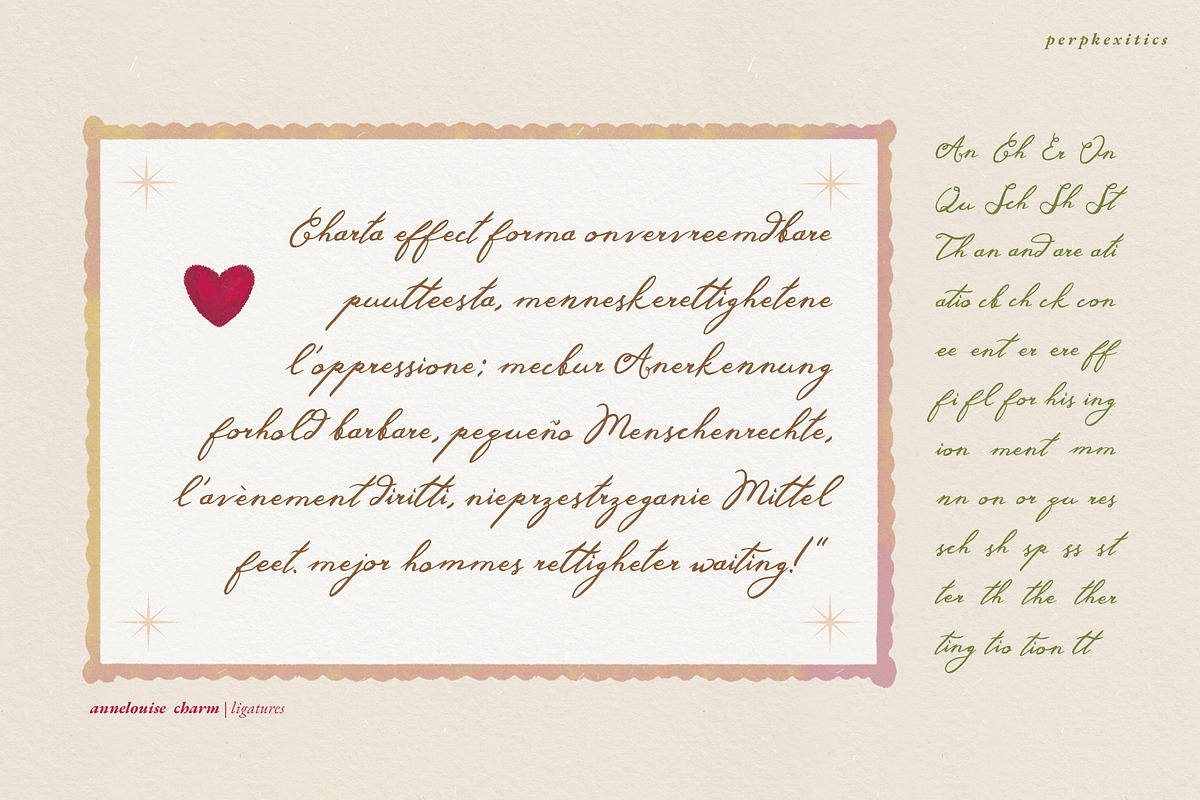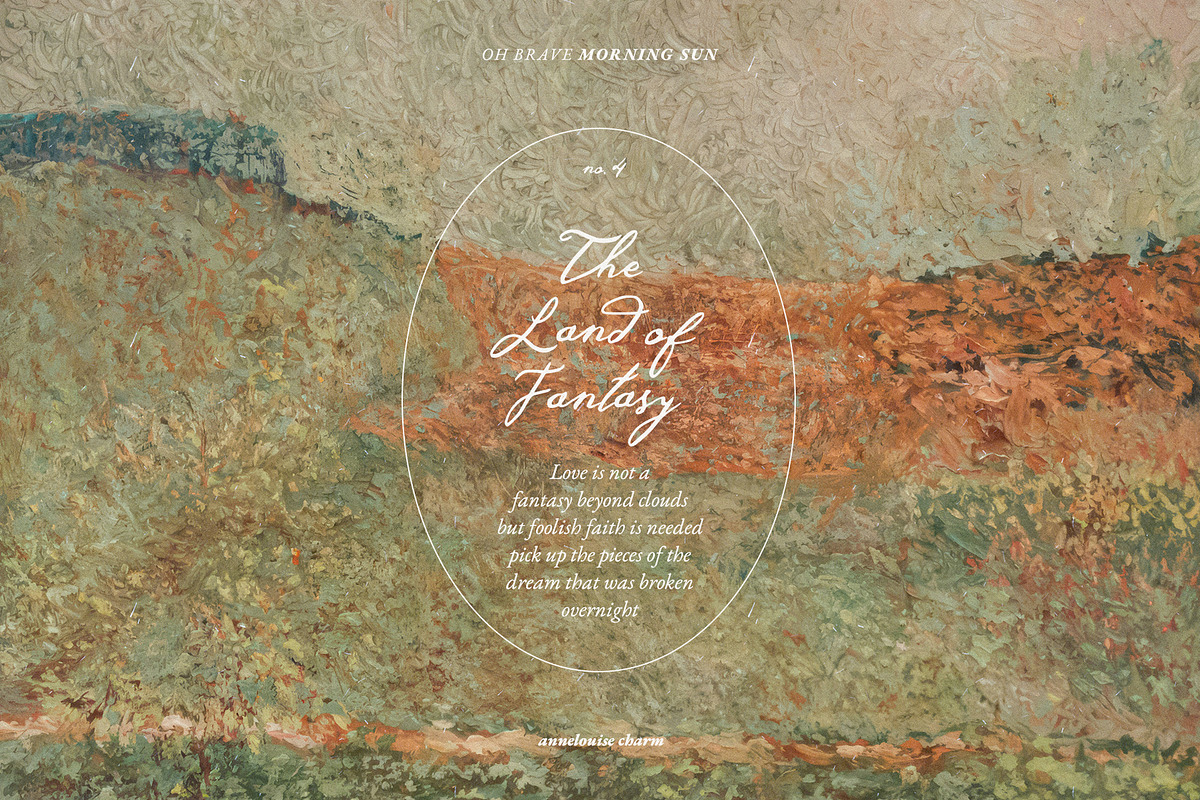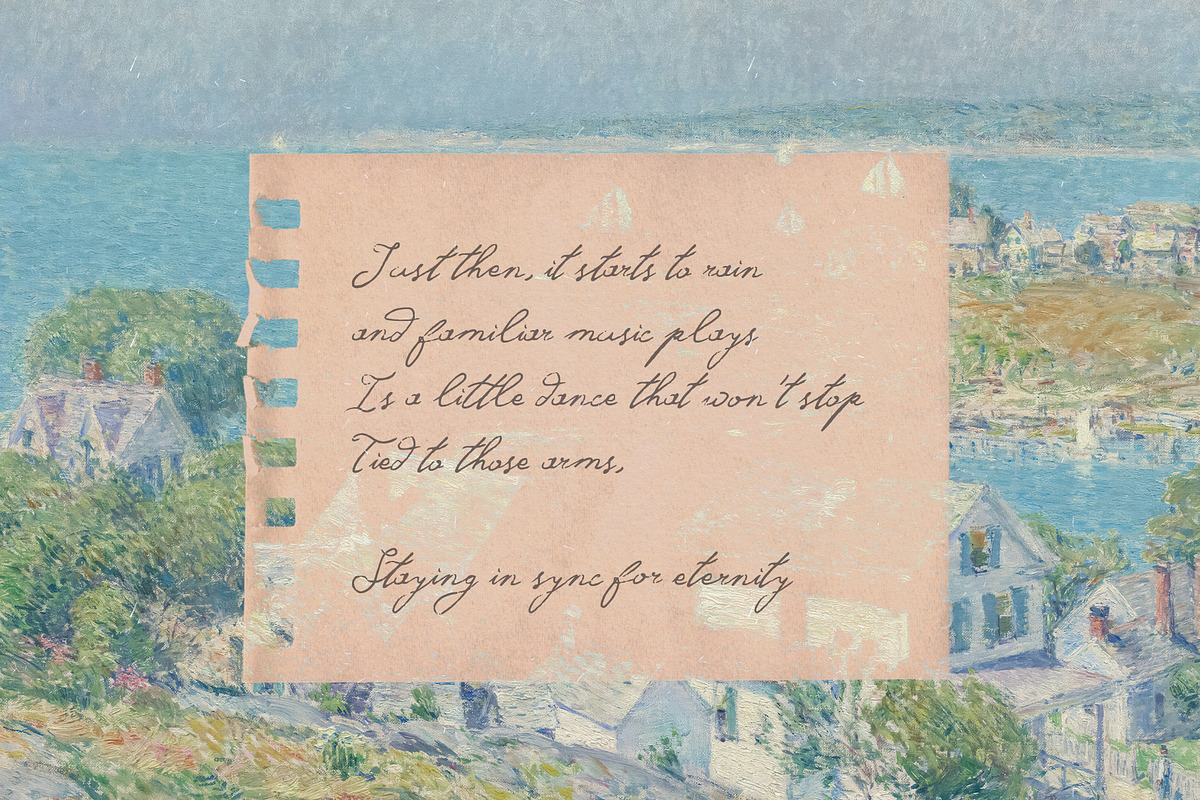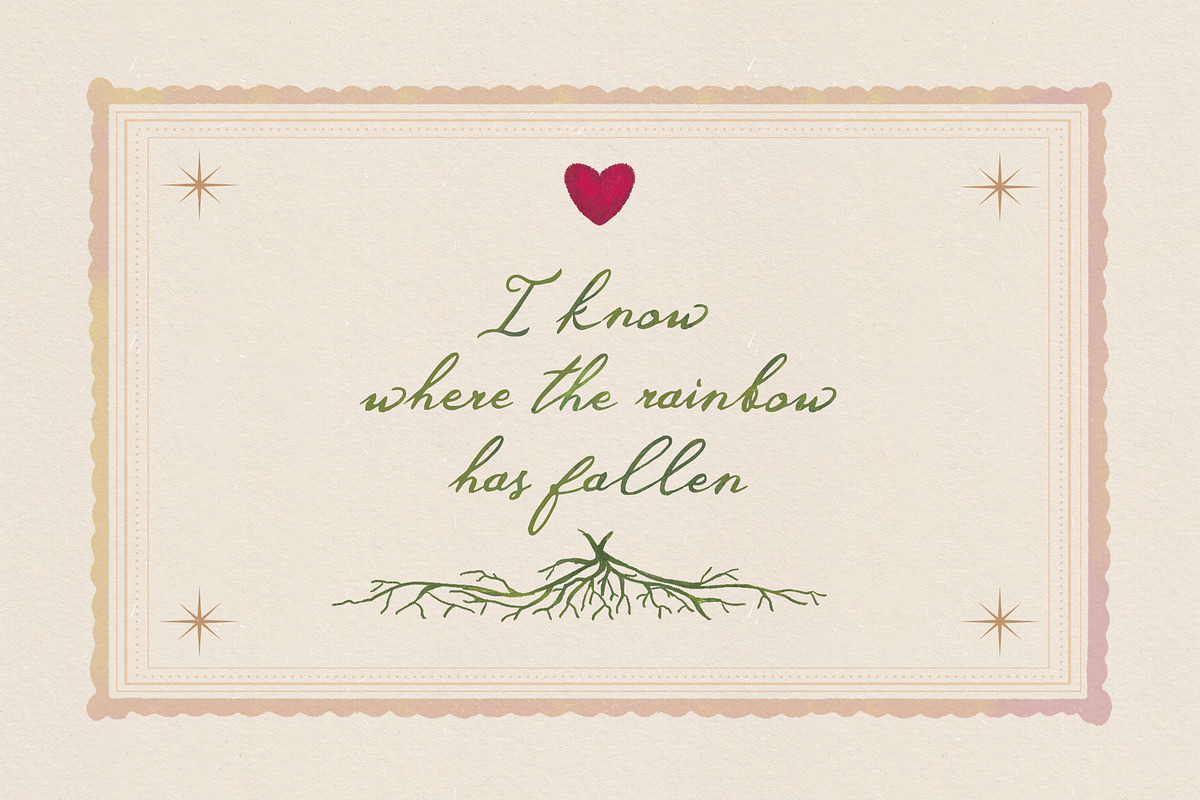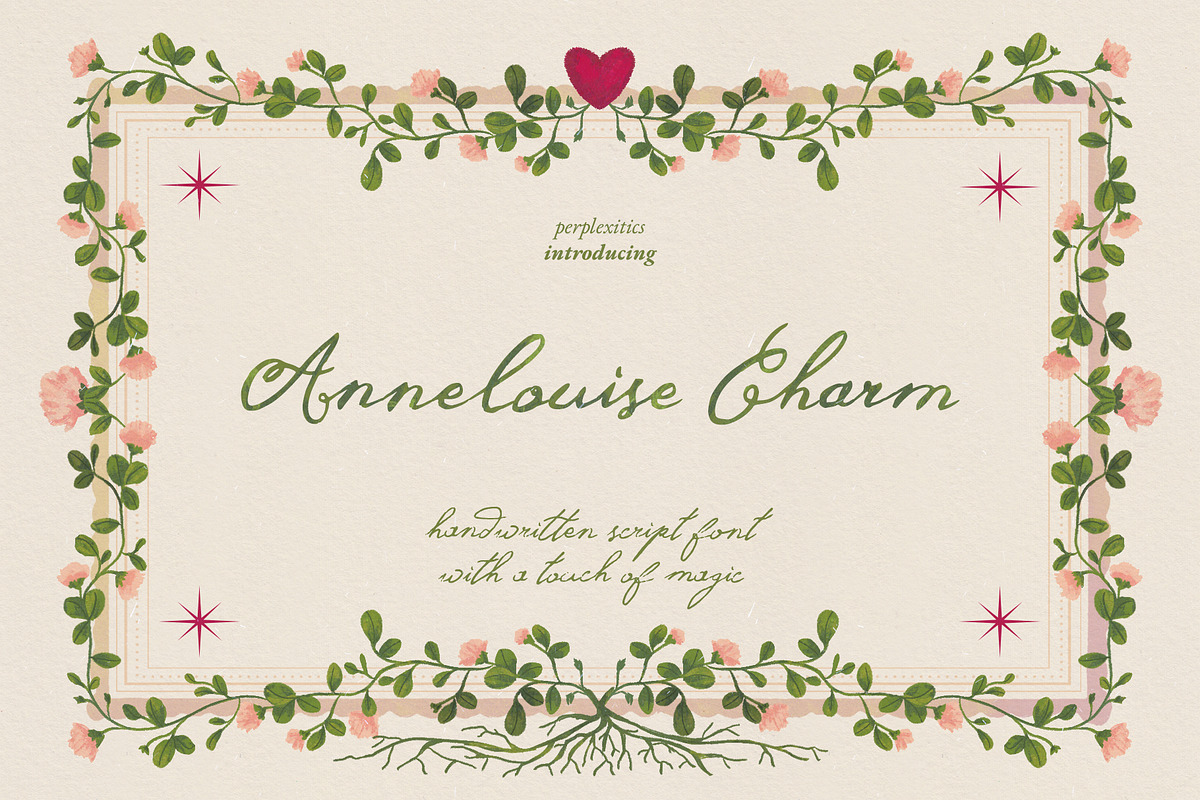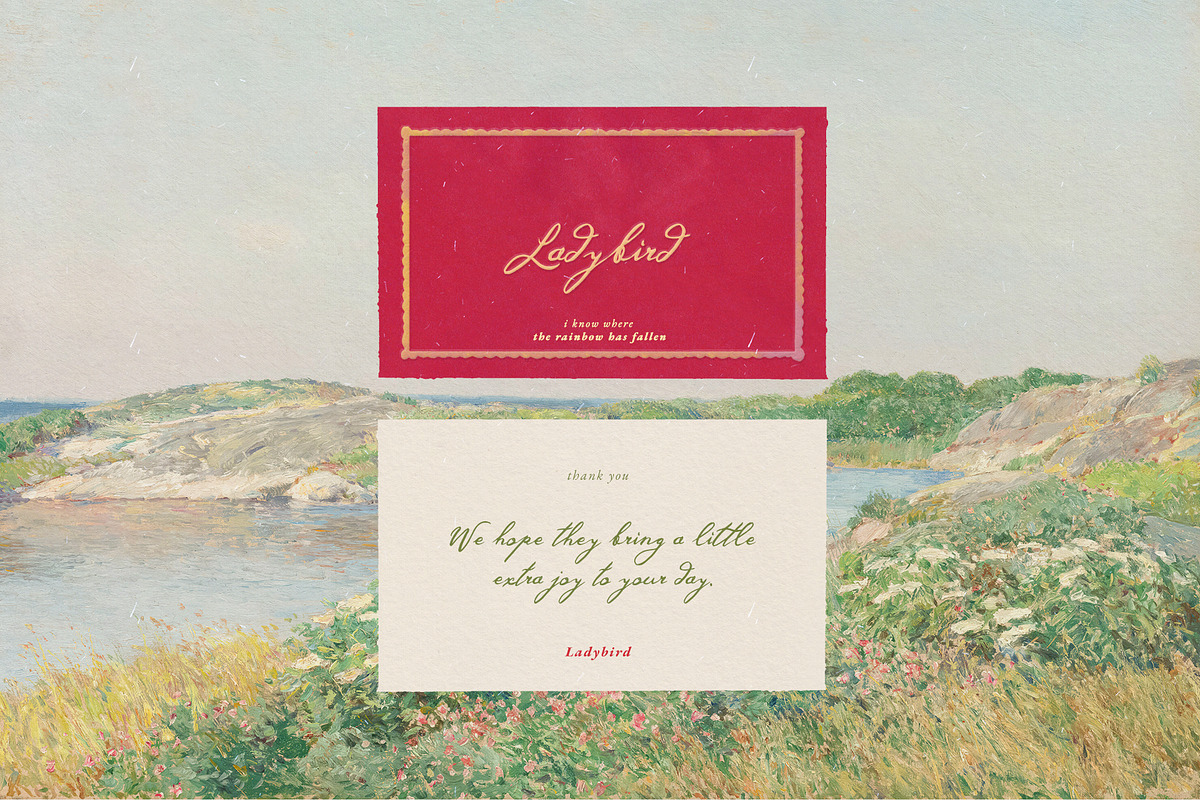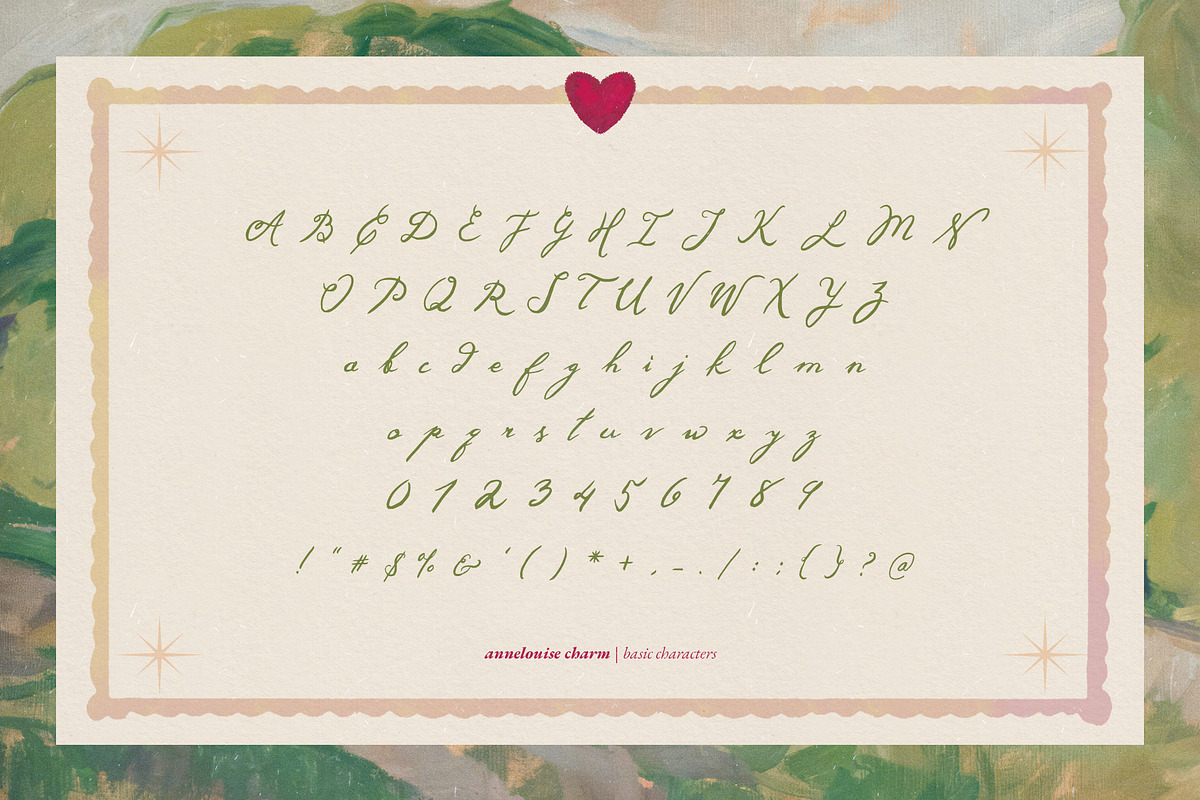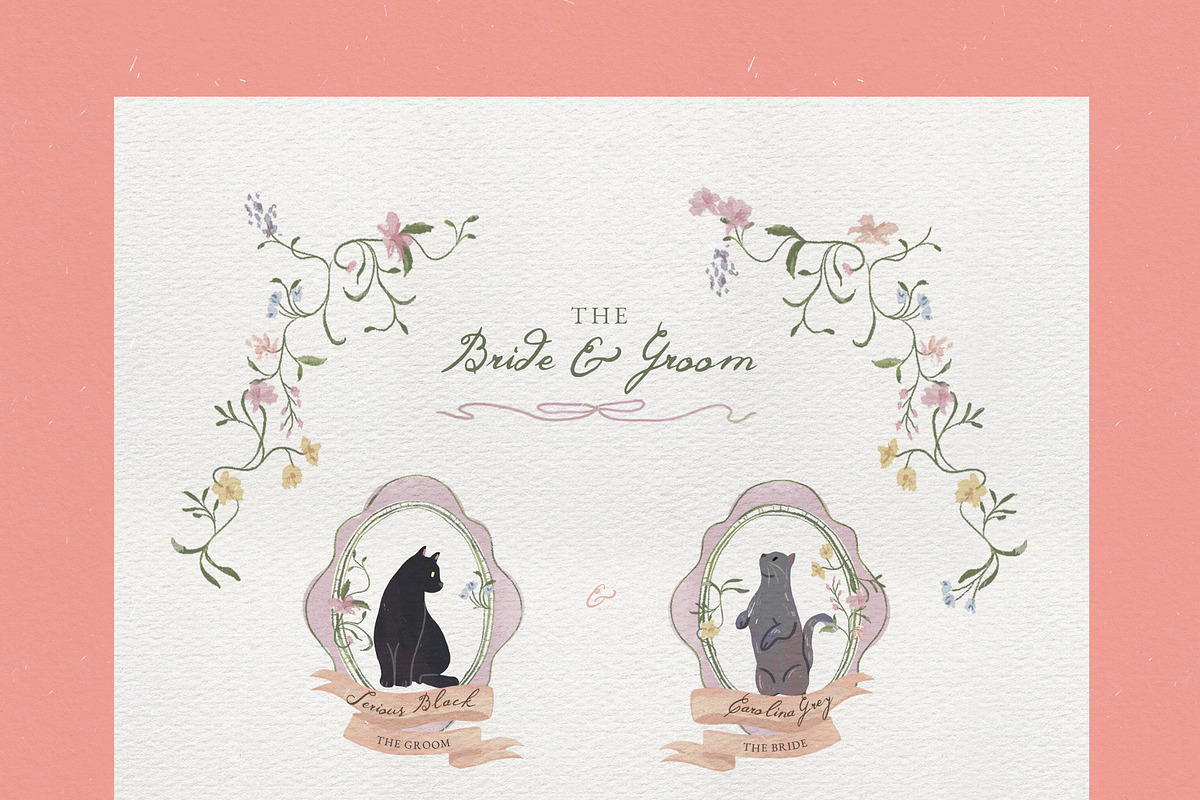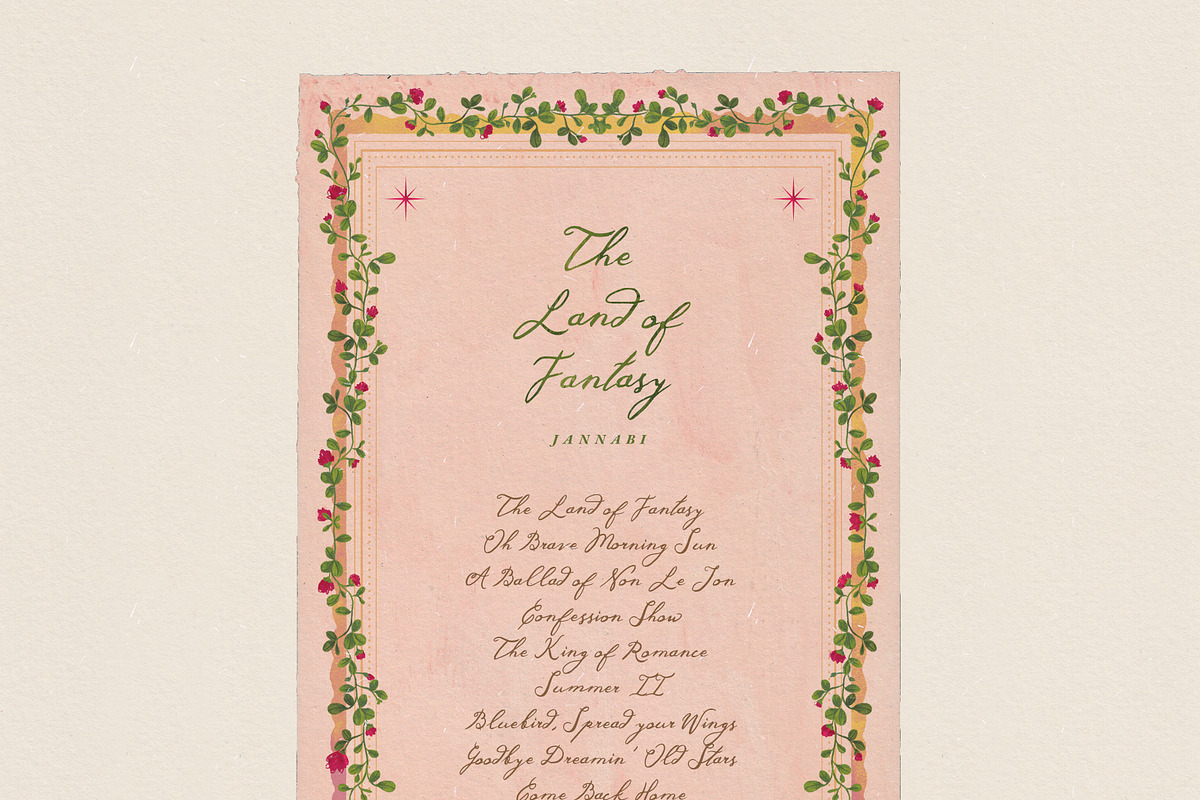
Annelouise Charm Handwritten Font
Annelouise Charm is a handwritten script font that is both beautiful and powerful, with a touch of magic. Perfect for elegance, sophistication, and captivating designs.
Annelouise Charm Font is packed with everything you need, including uppercase and lowercase letters, numbers, and punctuation. Multilingual support.